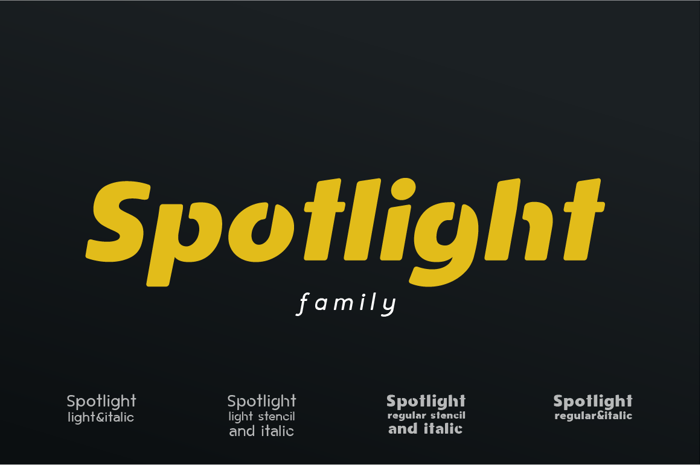
Spotlight Stencil Font
Spotlight is a modern sans serif typeface and perfect for headlines, logos or even continuous text. It has beautifully modulated letters and a balanced stroke width and you can choose between a regular look or true italics. Or go crazy with the stencil style, which will give your design a unique look. Try it for free or buy a commercial license which includes all 500 letters and a bonus style!